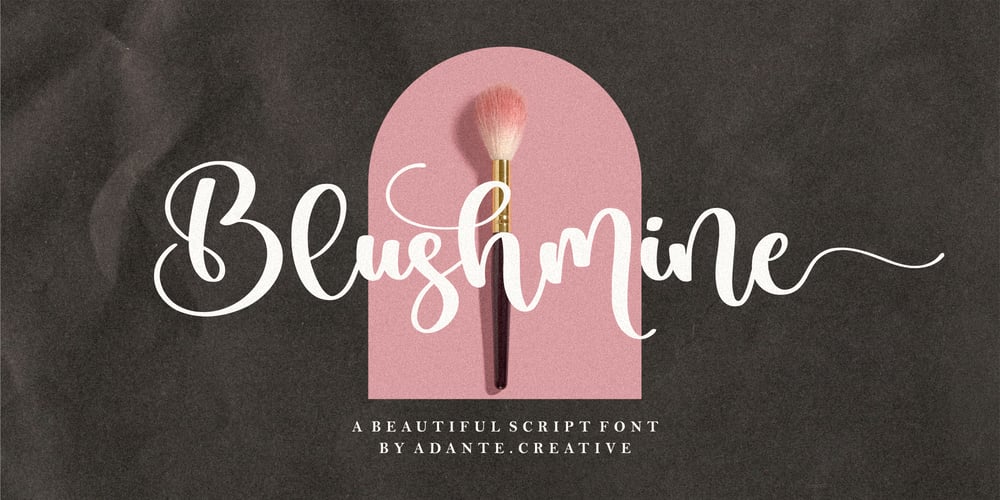
Blushmine Font Family was designed by Yanto Suheri and published by Adante Creative. Blushmine contains 1 styles and family package options. Introducing by Adante.CreativeProudly Present, Blushmine A Beautiful Script FontBlushmine is perfect for product packaging, branding project, magazine, social media, wedding, or just used to express words above the background.Enjoy the font, feel free to comment or feedback, send me PM or email.